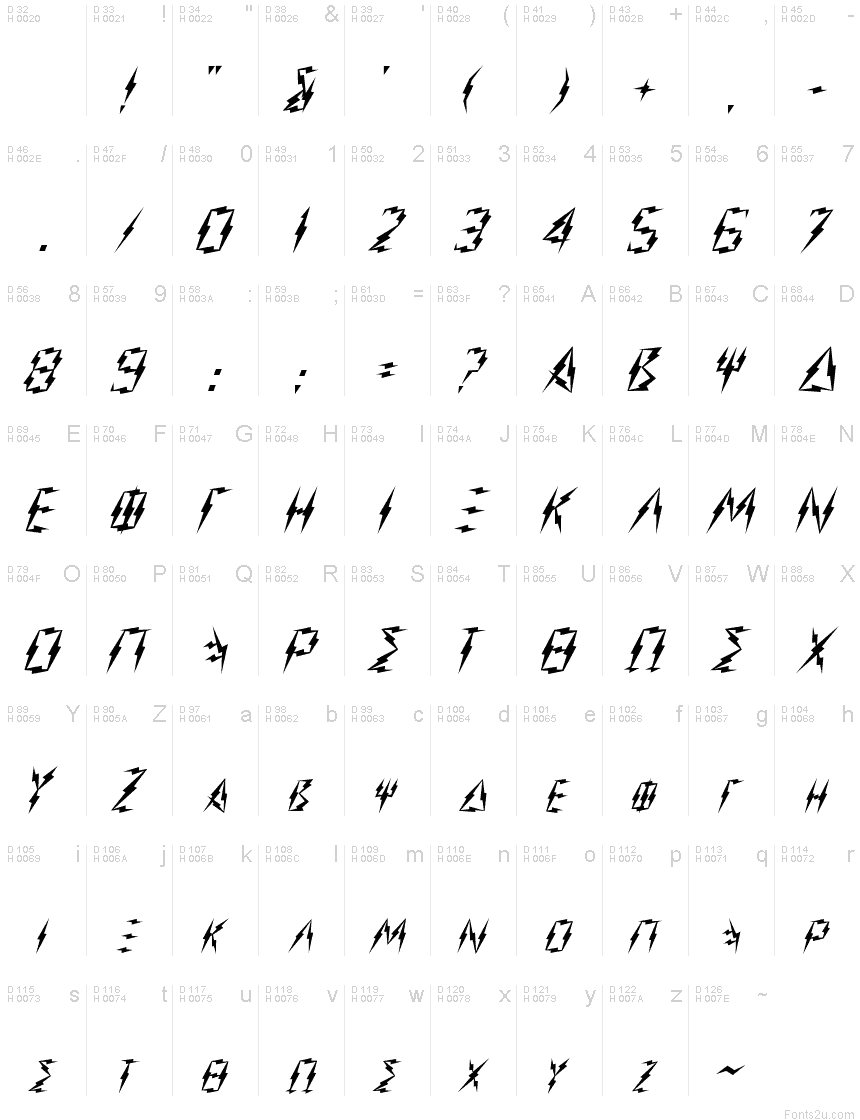
Zeus by Walter Velez is a free lightning-bolt distorted display font with a raw, electric snap. The caps lean into sharp zigzags and hacked-off corners, so the letters feel cracked by energy rather than simply slanted or roughened.
That restless shape makes it a natural pick for concert flyers, game logos, poster headlines, comic title cards, and merch graphics where a free font needs instant voltage. It also works well for short cover lines or monogram-style initials, because the repeated jagged cuts give even a few letters the feel of a charged emblem.